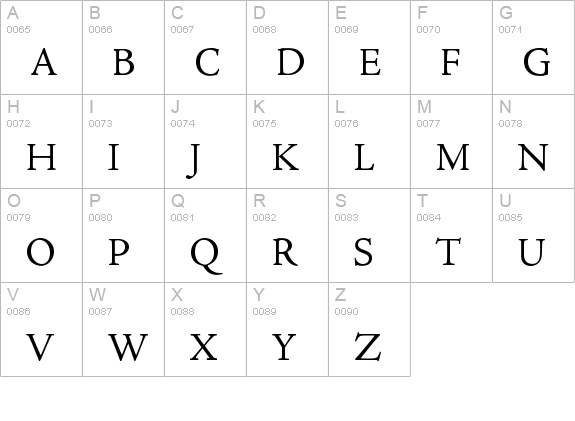
Adobe Jenson Pro is a timeless and versatile serif font that exudes elegance and sophistication. With its classic proportions and graceful curves, this typeface is perfect for adding a touch of refinement to any design project. Whether you are creating elegant invitations, stylish branding materials, or classic editorial layouts, Adobe Jenson Pro is sure to elevate your work to the next level. What makes Adobe Jenson Pro even more appealing is that it is available for free download at FontsMarket.com. This means that you can easily access this high-quality font and use it in your projects without any additional cost. Don't miss out on the opportunity to add this beautiful typeface to your font library and enhance your designs with its timeless charm.